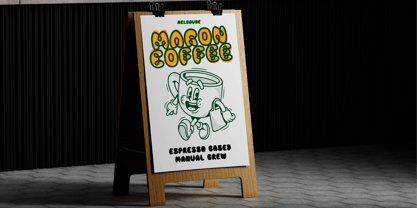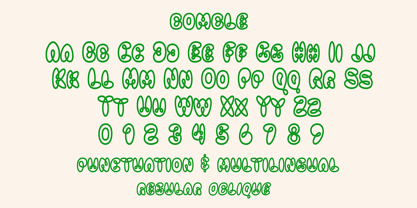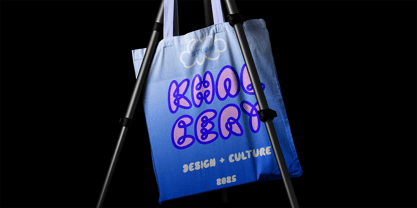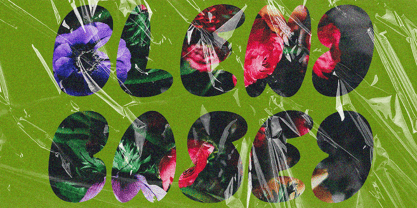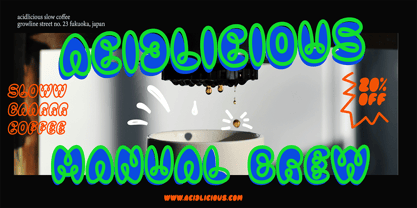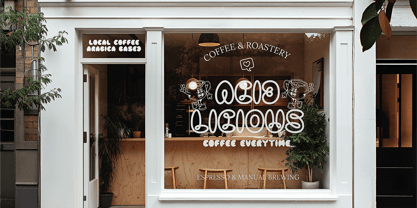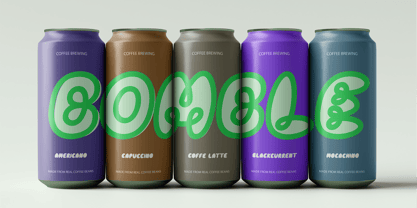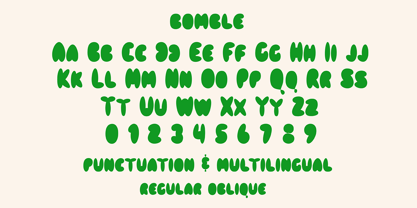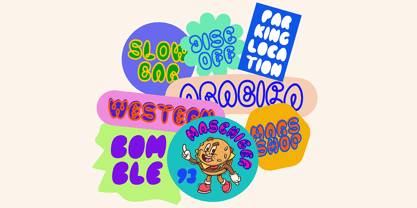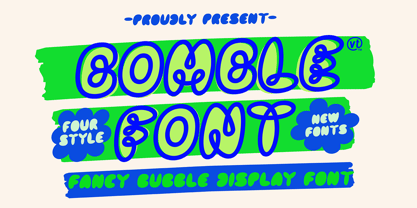
Bomble
by Viaction Type.Co
The Bomble Font Family was designed by Lukman Hidayat and published by Viaction Type.Co. Bomble contains 4 styles.
Bomble – Unique Bubble Display Font for Bold & Playful Designs
Bomble is a distinctive bubble-style display font that blends quirky charm with eye-catching style. Designed to pop on any visual medium, Bomble is available in two weights – Regular and Black – and two styles – Regular and Oblique. Whether you’re going for a clean bubble outline or a bold, solid look, Bomble delivers with playful precision.
The Regular/Outline version features smooth, uninterrupted letterforms that give a seamless, fluid feel – perfect for modern pop-culture aesthetics. The Black version stands out with its strong, chunky shapes, ideal for impactful titles and attention-grabbing packaging.
Perfectly suited for posters, product packaging, merchandise, branding, and editorial design, Bomble brings a vibrant, youthful energy to your creative projects. Its unique character makes it a great fit for designs that demand personality and fun.
Bring a burst of fun to your typography with Bomble – where bubble meets bold!